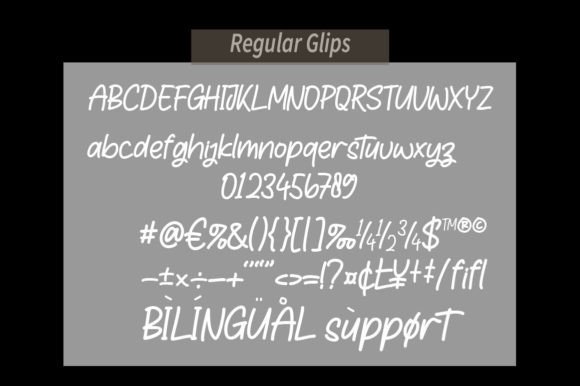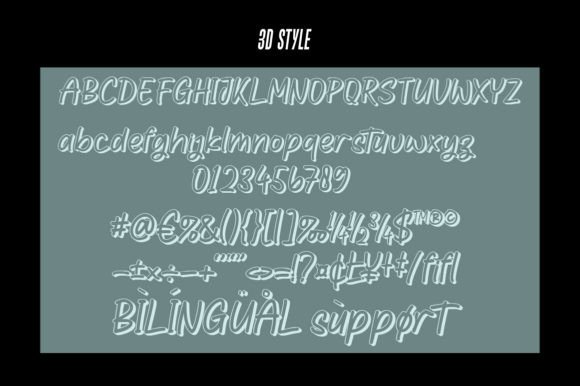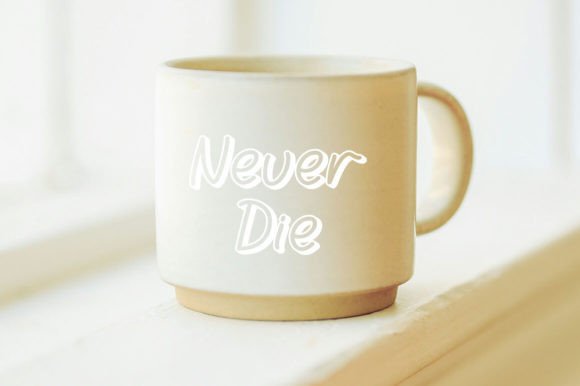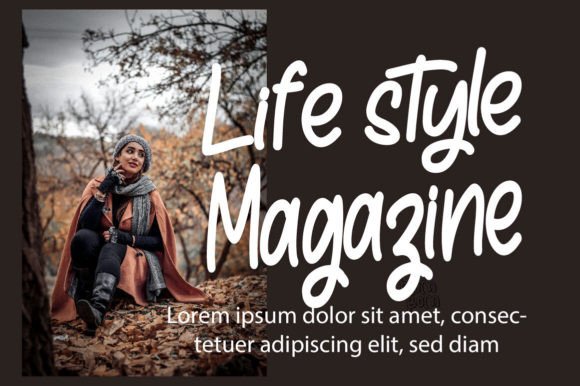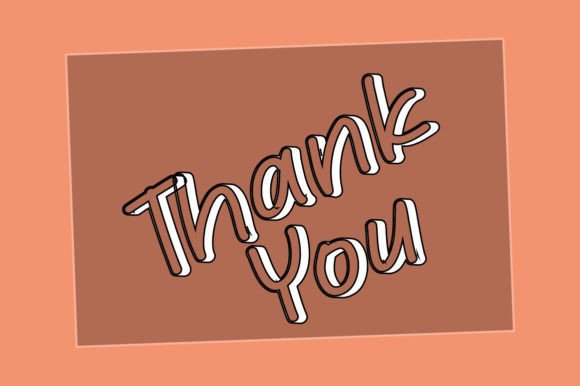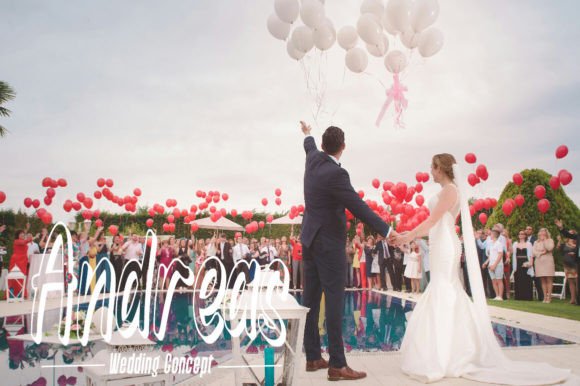
Introduction to Sleep Alone Font
This font is a captivating monoline script font that exudes a modern and elegant charm.
This font showcases a sleek and uniform stroke width, giving it a contemporary and minimalist look The letterforms of Sleep Alone are crafted with precision and clarity, yet maintain a sense of fluidity and grace.
Key Features of Sleep Alone Font